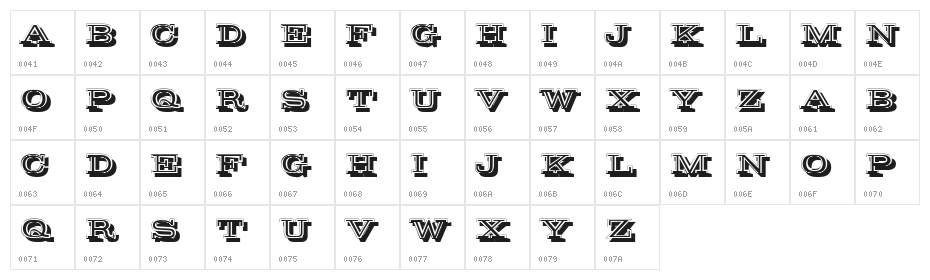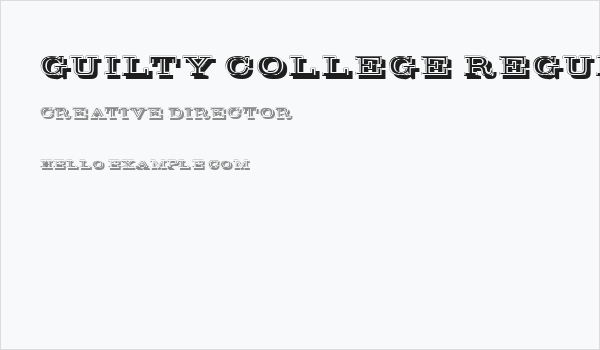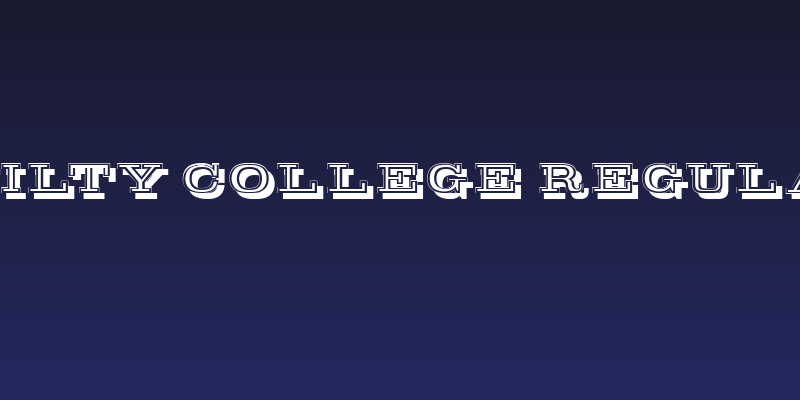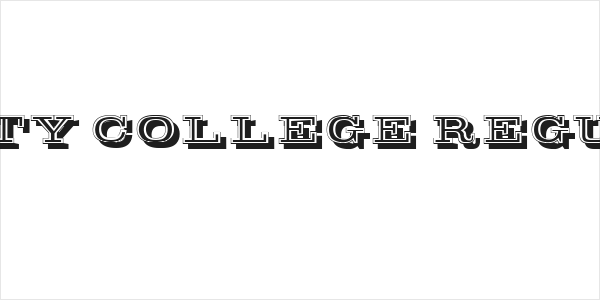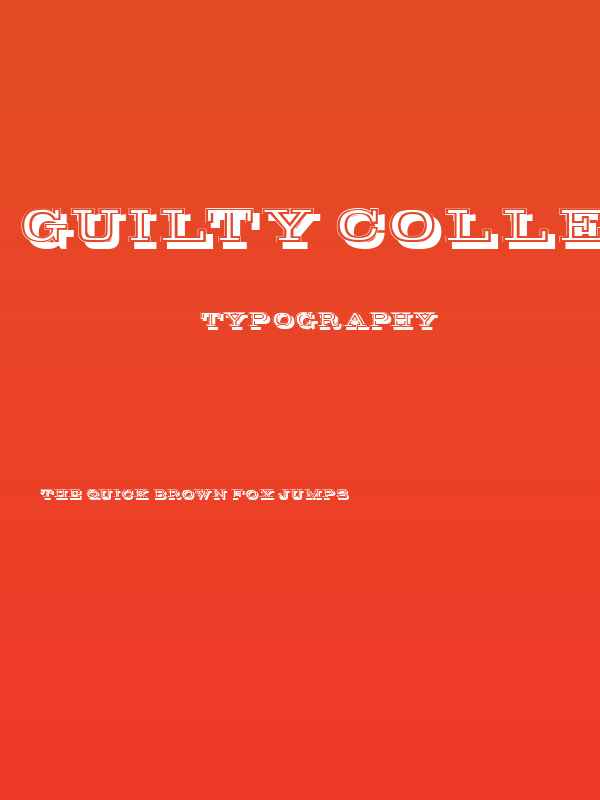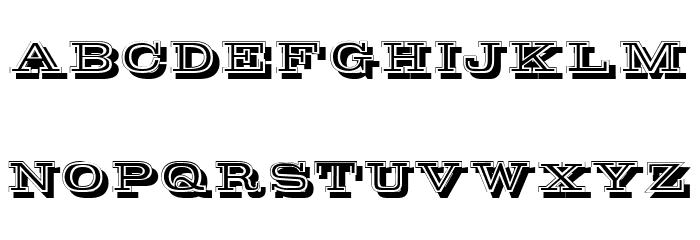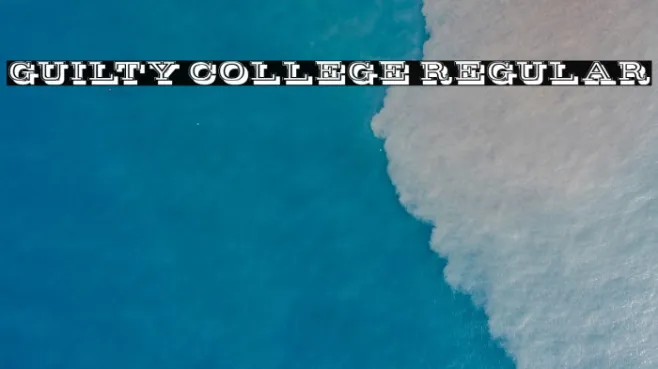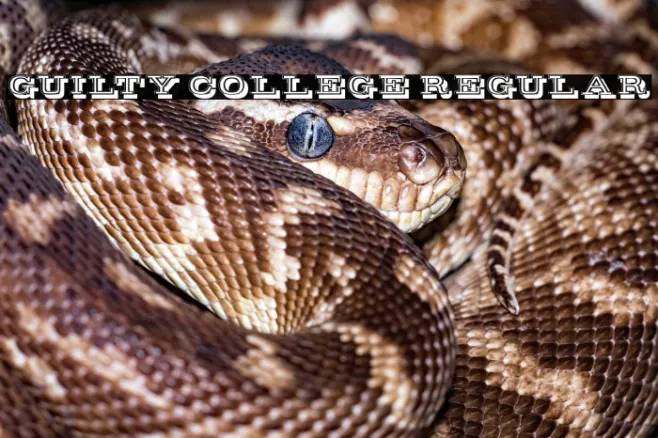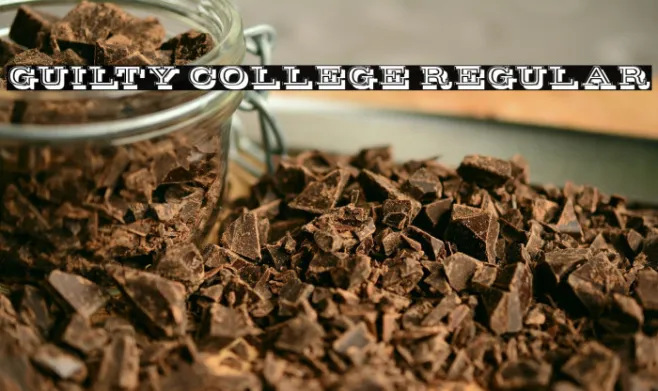
Guilty College Regular Font
Guilty College Regular Description
This font features a bold, collegiate style with a strong presence. The characters are uppercase and exhibit a double-line outline that adds depth and dimension. The design is reminiscent of traditional varsity or sports team lettering, making it ideal for projects that require a bold and impactful look. The strokes are consistent in width, providing a uniform appearance across all characters. The font's structure is clean and geometric, with sharp angles and straight lines that convey a sense of strength and stability. The spacing between characters is balanced, ensuring readability while maintaining the font's bold aesthetic.
| Use Case | Logos, Headlines |
| Proposed Projects | Ideal for sports team logos, university branding, event posters, and merchandise designs. |